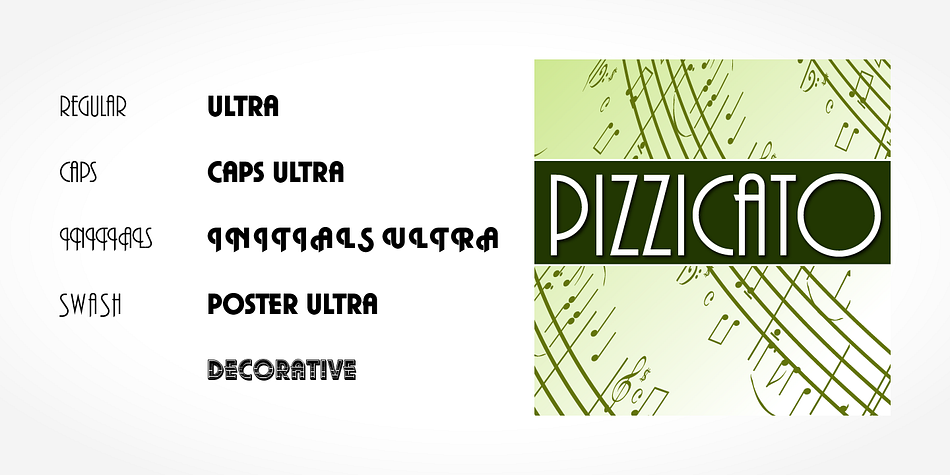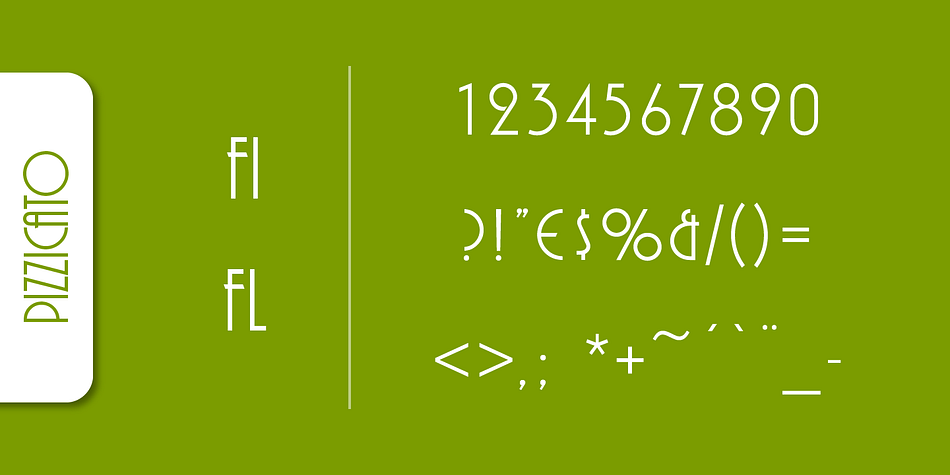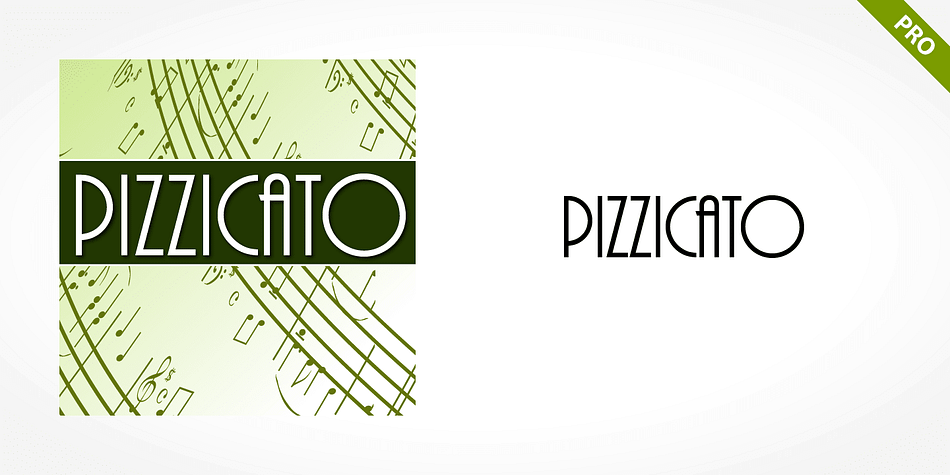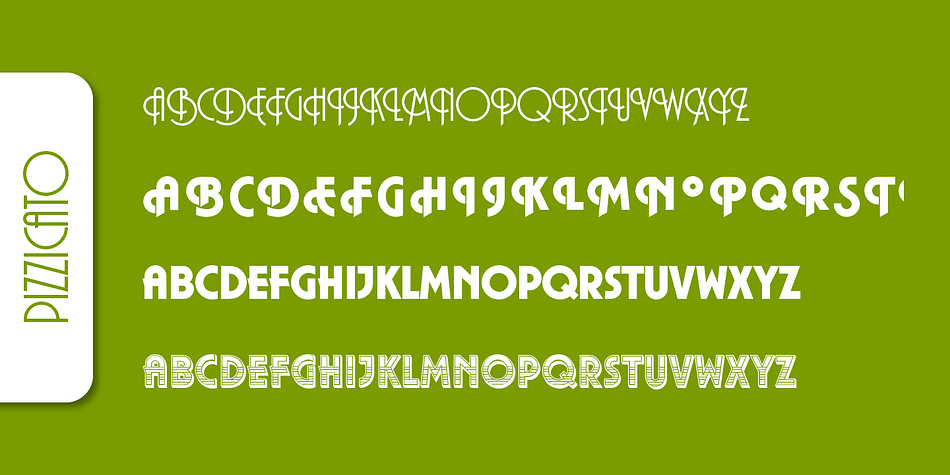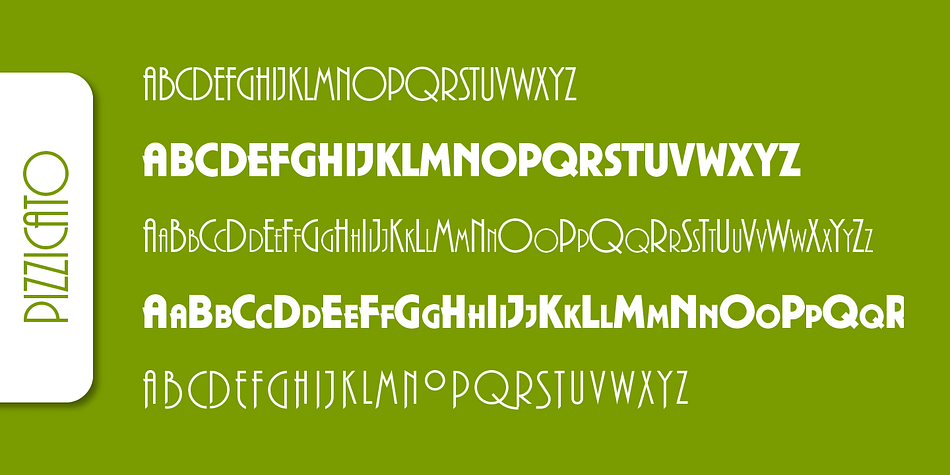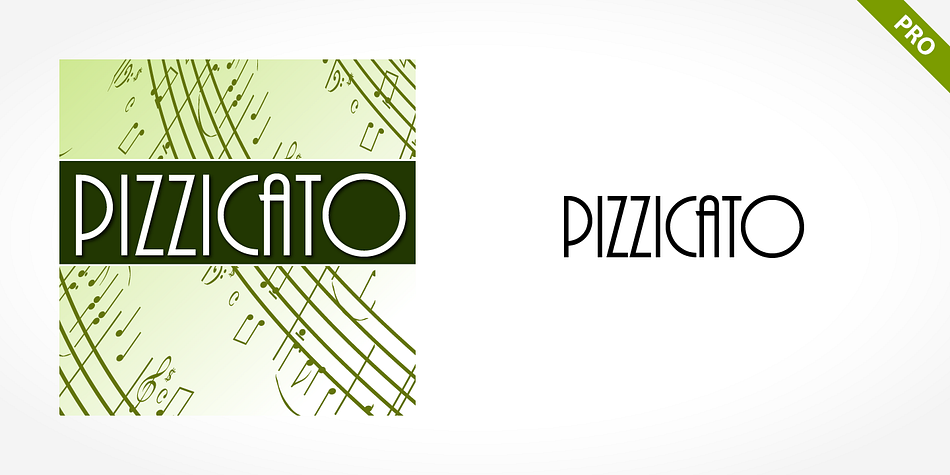
PIZZICATO PRO
Pizzicato Pro is an art deco font family. This typeface has nine styles and was published by SoftMaker.
Pizzicato Pro is na Art Deco sans serif style. It includes many alternative characters which offer endless possibilities. Pizzicato Pro is ideal for work in which a feel of the 1920s or 30s is desired.